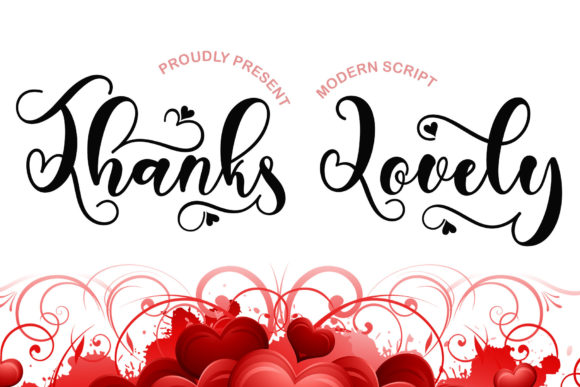
Journey into the enchanting world of "Thanks Lovely," a resplendent script font adorned with delicate heart decorations on every character. This captivating creation will add a touch of whimsical elegance to your digital designs, transforming them into works of art.
Let your imagination soar as you craft exquisite Valentine's Day cards adorned with heartfelt messages, enhanced by the captivating charm of "Thanks Lovely." Envision your Christmas greetings radiating warmth and love, adorned with this enchanting font that tells a story of joy and togetherness. Express gratitude and heartfelt appreciation on Thanksgiving with invitations penned in "Thanks Lovely," conveying a depth of emotion that mere words cannot capture.
Picture the beauty of wedding invitations adorned with "Thanks Lovely," where every letter dances across the page like a symphony of love. Witness the elegance of this font grace your invitations, enveloping your guests in an atmosphere of timeless romance.
With "Thanks Lovely," you possess a font that transcends the ordinary, embodying a whirlwind of emotions and capturing the essence of heartfelt connections. Whether you're a seasoned designer or a creative enthusiast, this font will unleash your inner artist, allowing you to weave visual masterpieces that resonate with your audience.